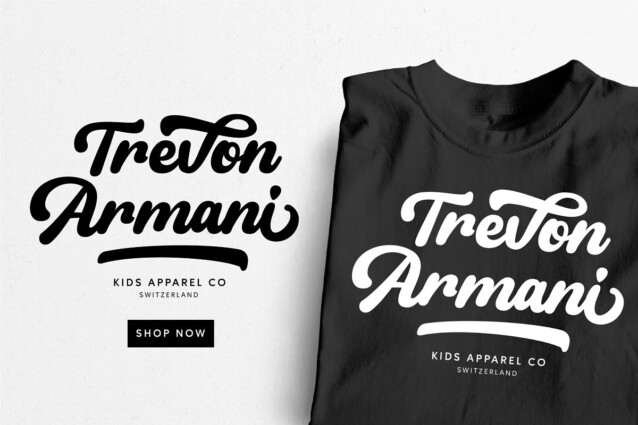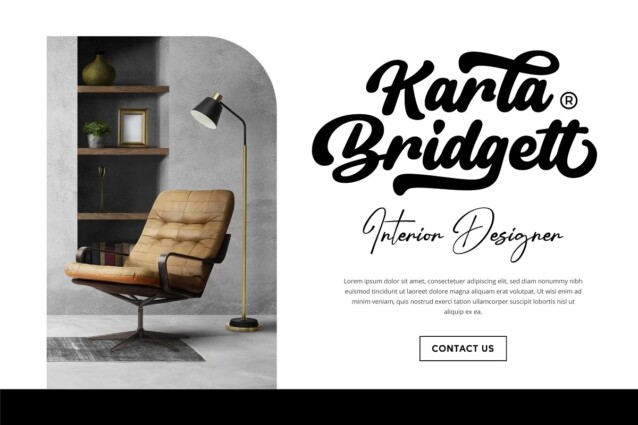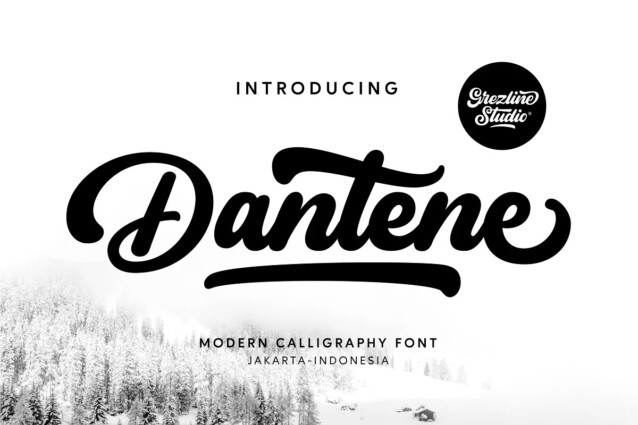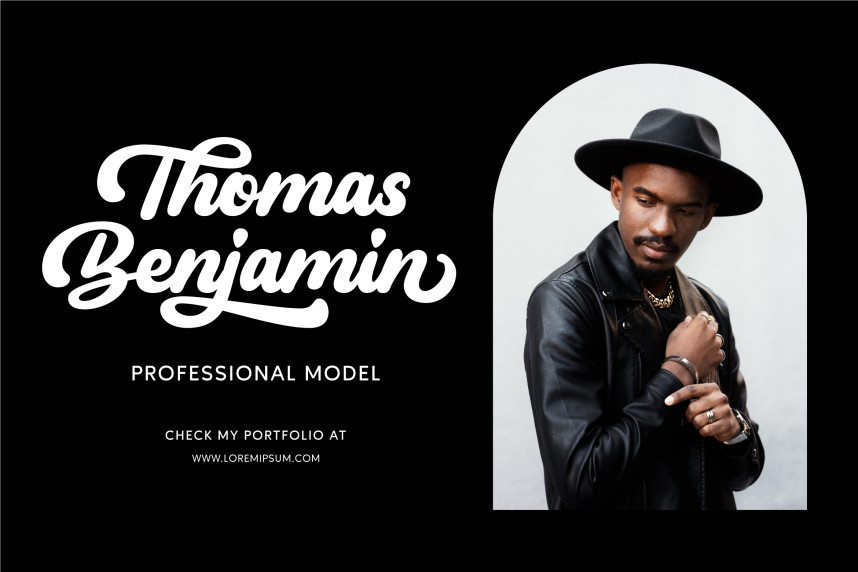
Dantene Font
Dantene Font is a textured handwritten script typeface made by Grezline Studio. This font is detailed and has a beautiful shape. It will give you a summer vibe in your design. It is a perfect use for logotype, typography design, product packaging, t-shirt design, label poster, headings, letterhead, signage, and anything that need modern taste. You can also mix and pair it with other fonts to provide a unique and fresh looks to your design projects.